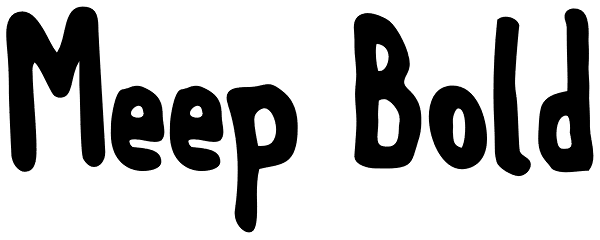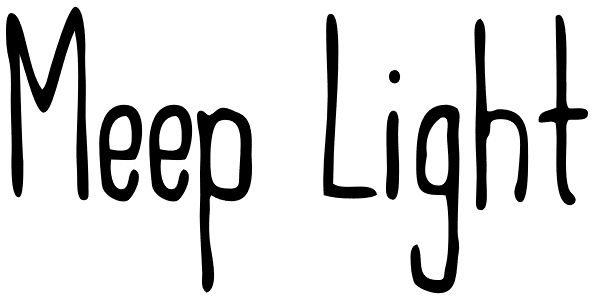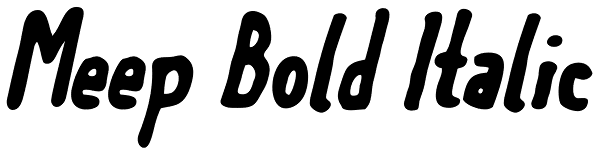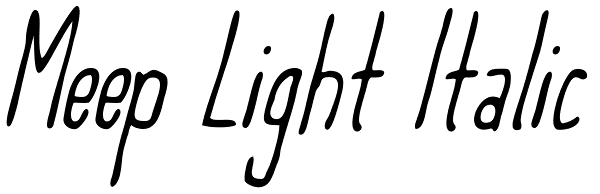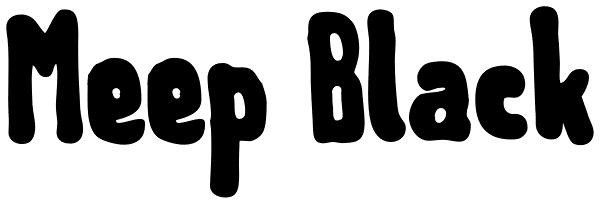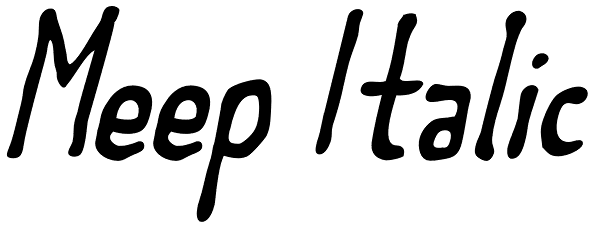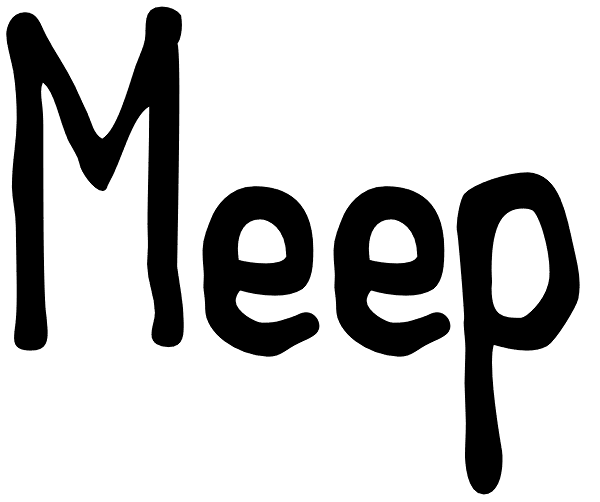
Meep
What to do today? Meep? Meep! Meep! Meep! They all agreed. Meet the Meep sisters - Lala, Lili, Lolo & Lulu - a handwritten narrow font in 4 weights - regular & slanted with common- and many double letter ligatures for a natural & varied hand drawn...